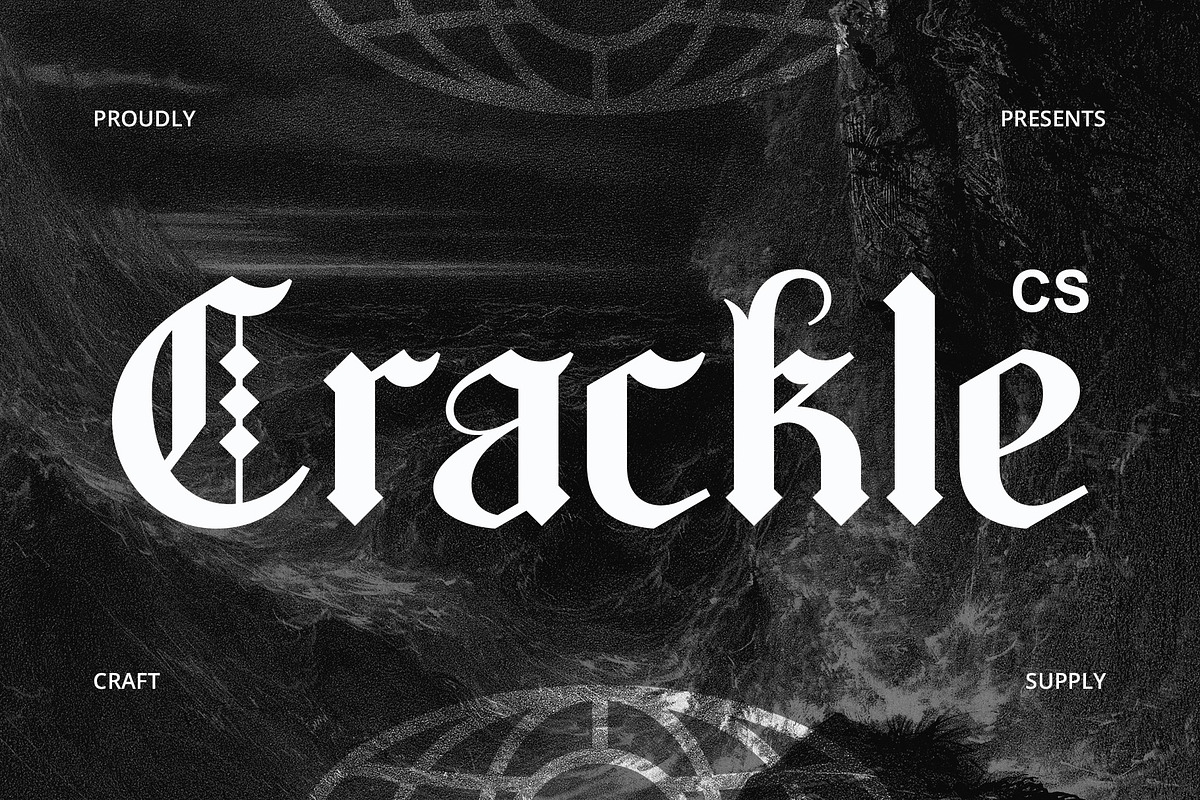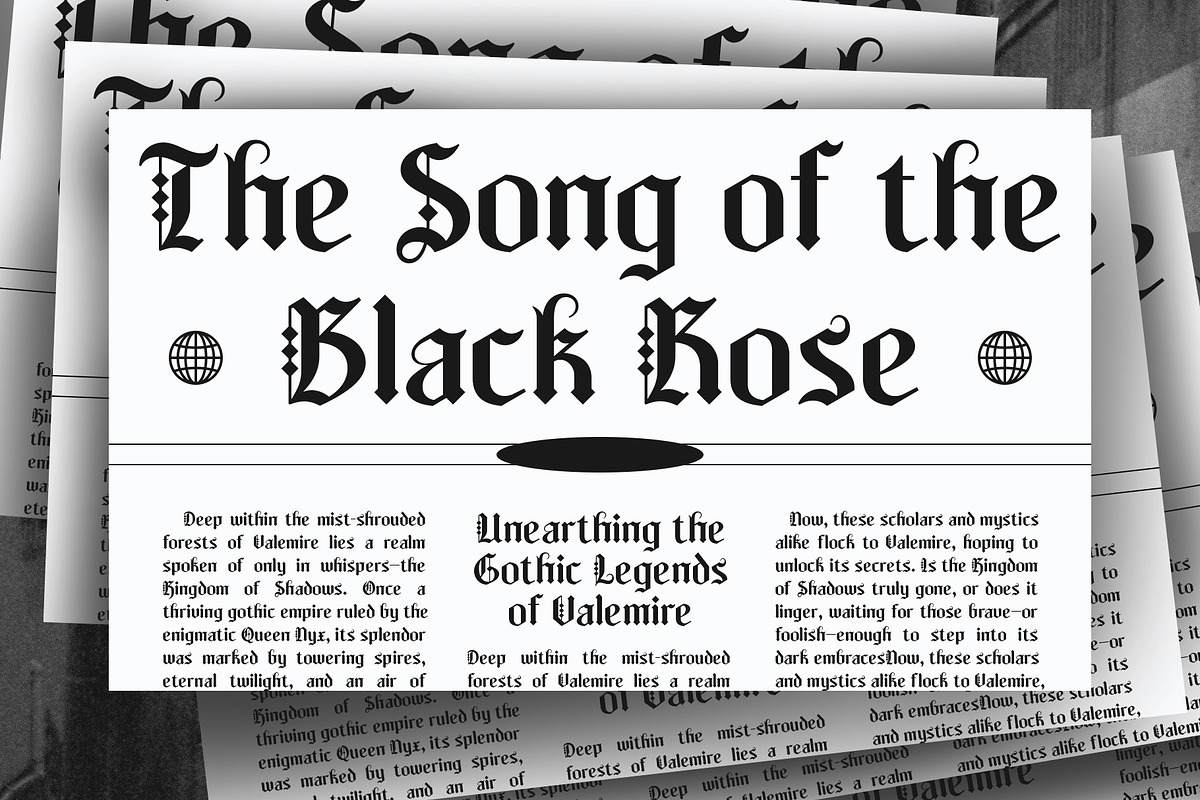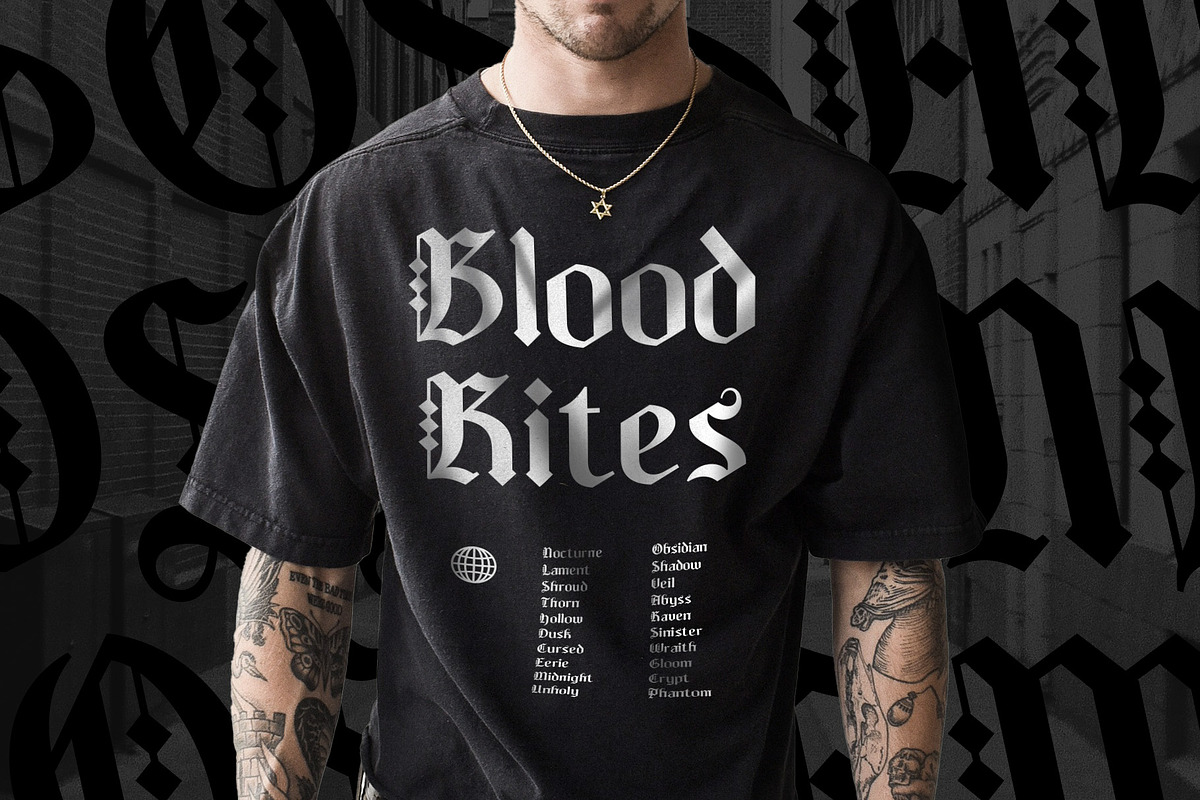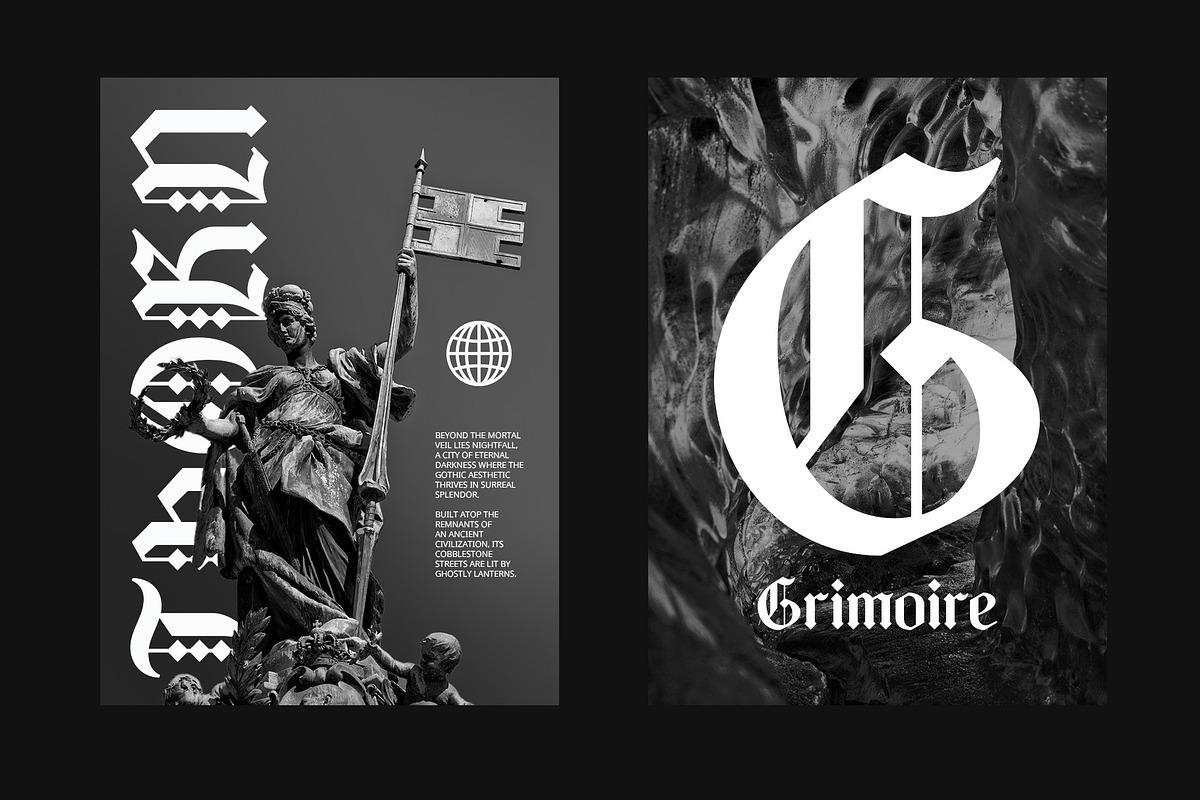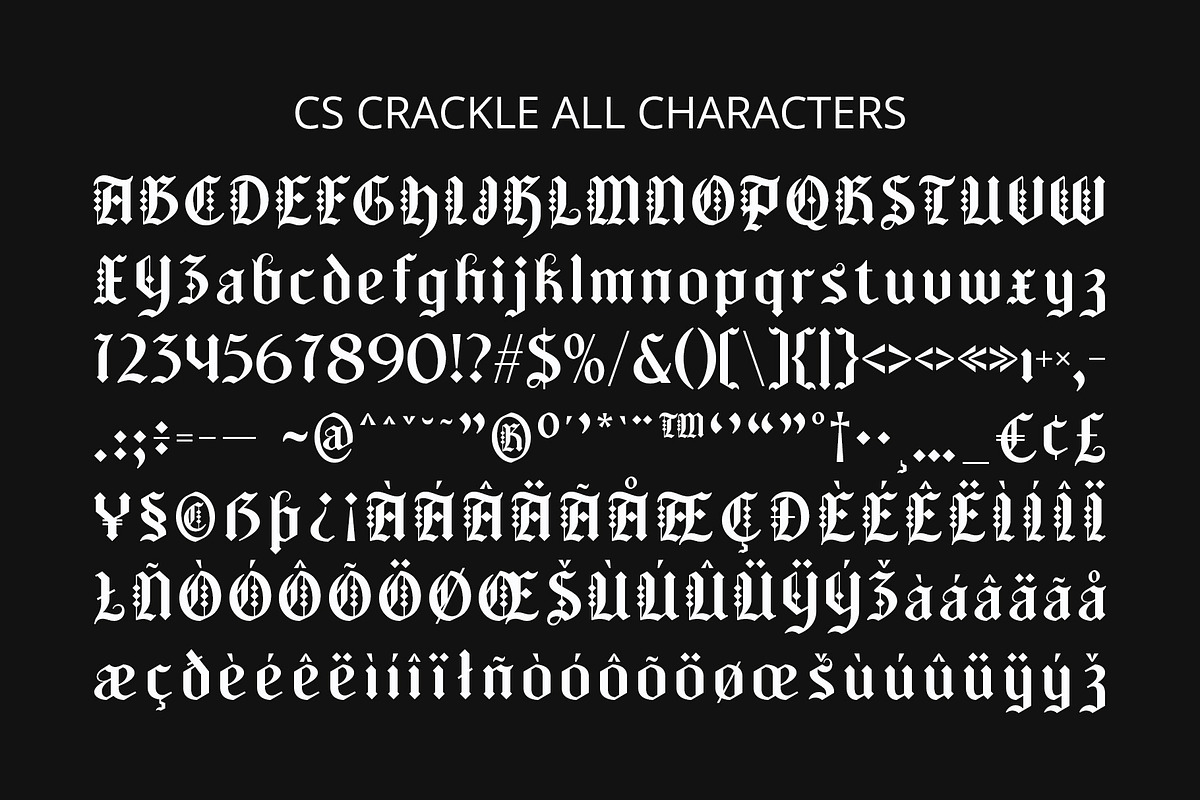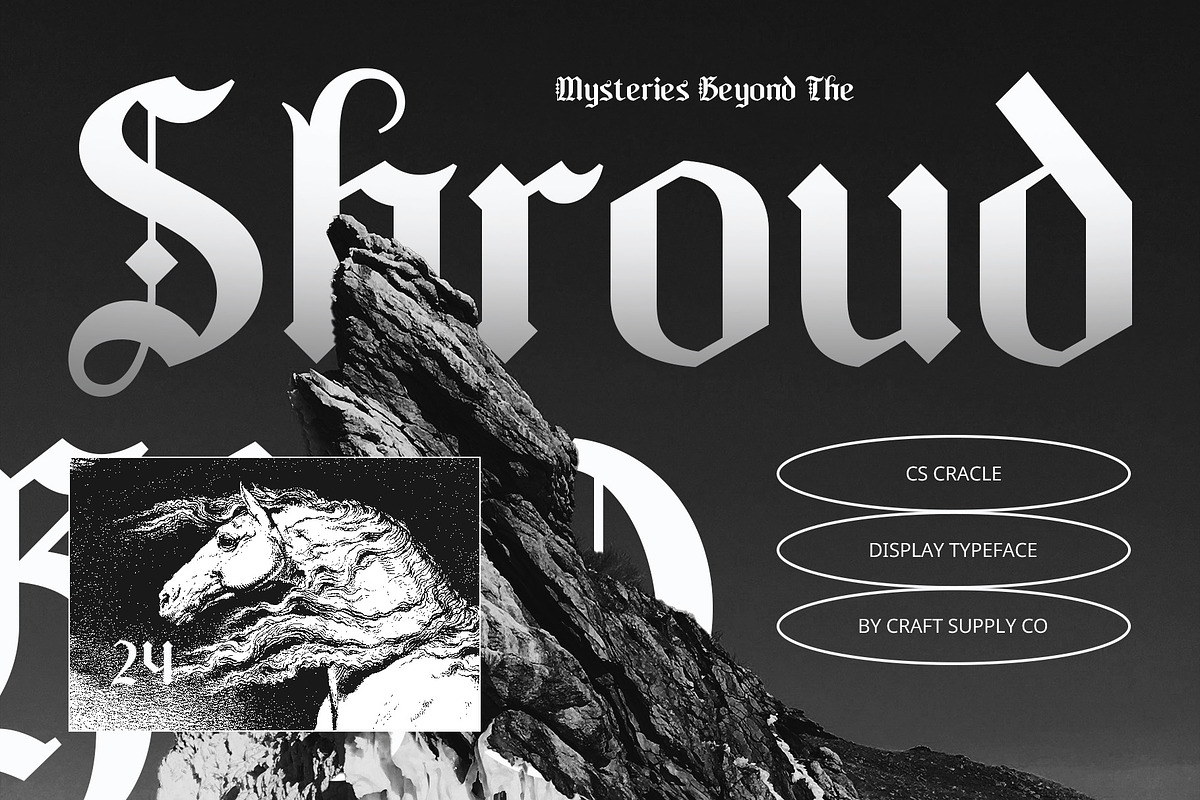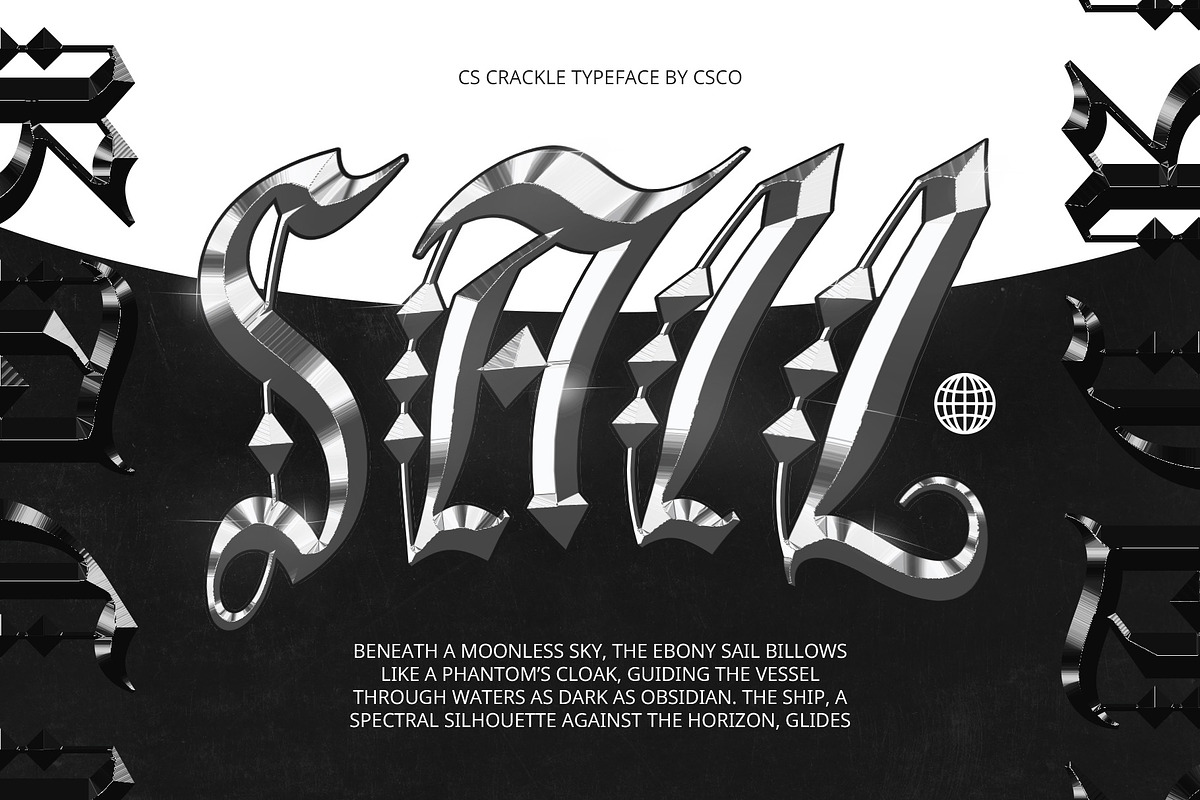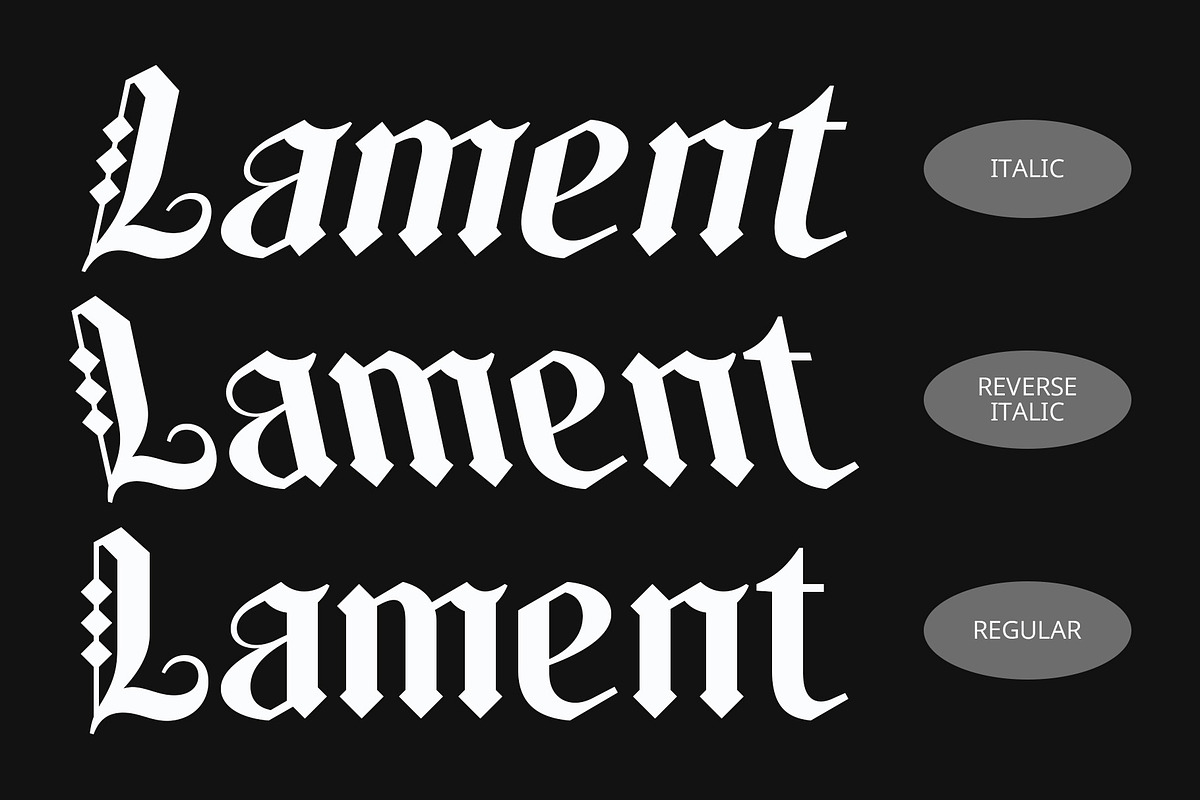
CS Crackle – Blackletter Font
CS Crackle – Authentic Blackletter Fraktur Display Font
Medieval Elegance with Bold Detailing CS Crackle is a display font with a blackletter fraktur style, featuring distinctive, ornate letterforms characterized by sharp angles and contrasting thick and thin strokes. This font draws inspiration from traditional European medieval writing, lending it a historical, serious, and highly decorative feel. Its bold strokes and intricate detailing make it a perfect choice for projects requiring a classic and formal appearance with a sense of authenticity and heritage.
Historical and Timeless Appeal The fraktur form of CS Crackle highlights decorative, highly detailed letters that evoke the artistry of medieval scripts. Perfect for designs seeking to convey a sense of tradition, this font brings a nostalgic, authentic touch to any project. Whether you’re creating logos, posters, or any visual material tied to historical culture, ancient architecture, or classic literature, CS Crackle delivers a timeless aesthetic that brings history to life.
Distinctive and Eye-Catching With its sharp, angular strokes and dramatic contrast between thick and thin lines, CS Crackle captures attention with its unique, bold presence. The distinctive nature of the font makes it an ideal choice for high-impact designs that need to stand out with strong historical roots. The detailed structure and ornamental elements make this font a standout for designs that aim to evoke the medieval or Gothic eras.
- CS Crackle Regular
- CS Crackle Italic
- CS Crackle Reverse Italic